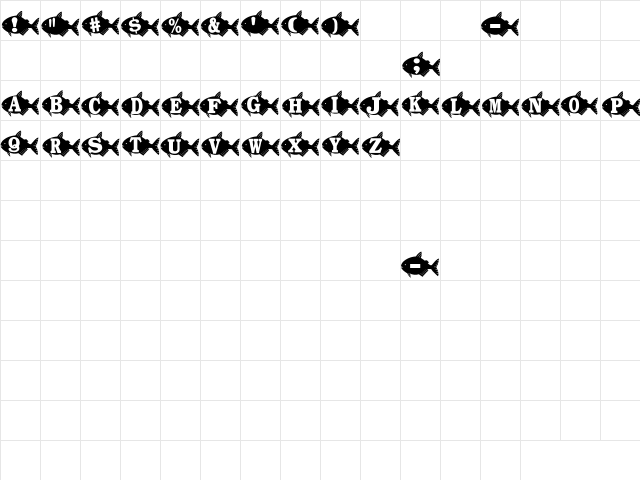
Complete AEZ goldfish glyph index. Displaying only characters natively supported by AEZ goldfish font.
AEZ goldfish is a composed and adaptable typeface that performs quietly and consistently across a wide range of design contexts.